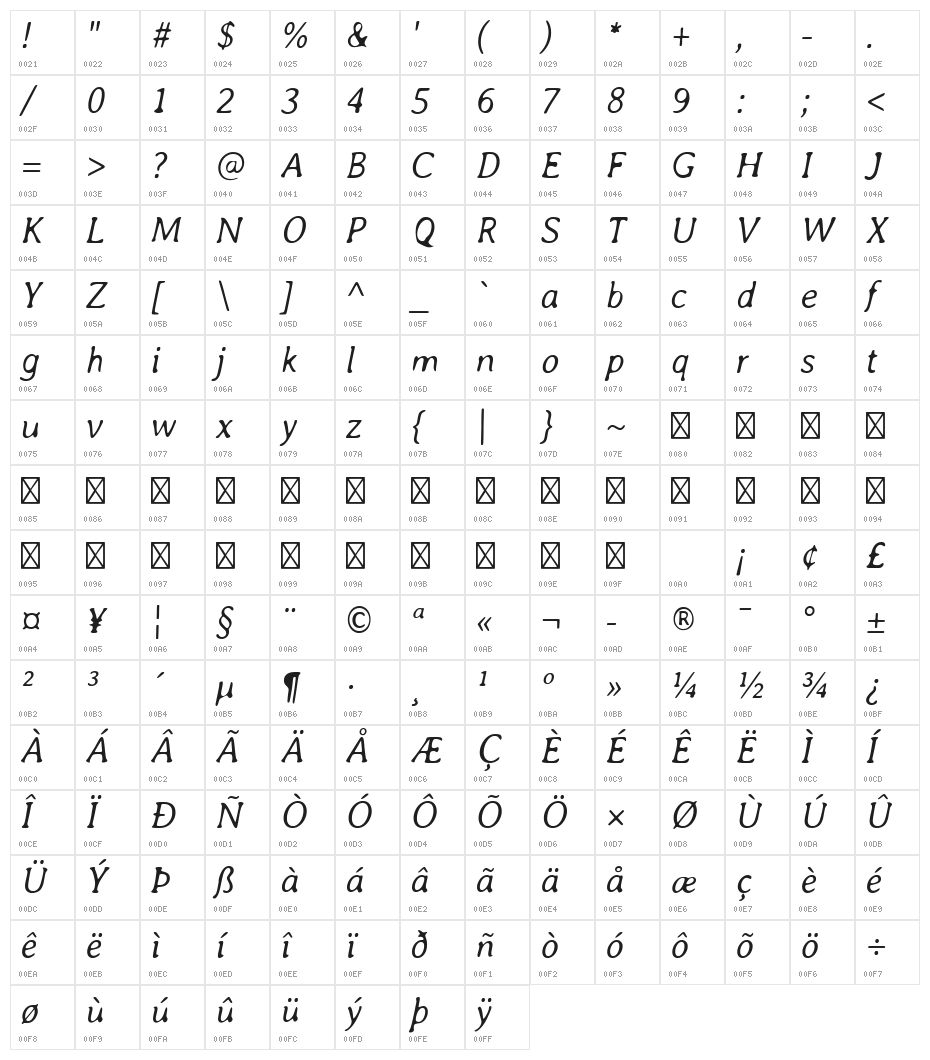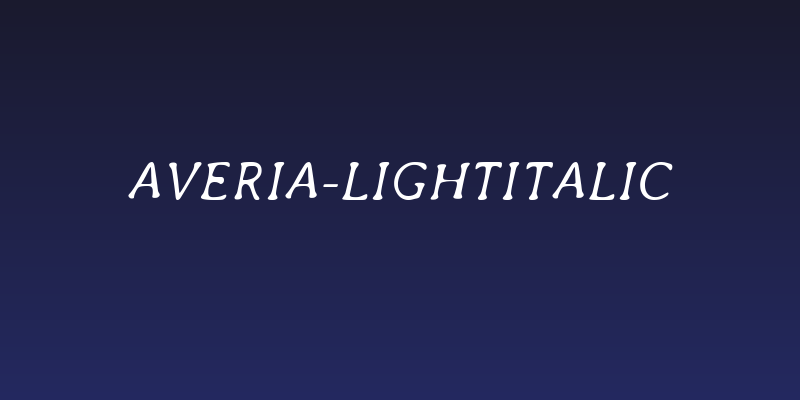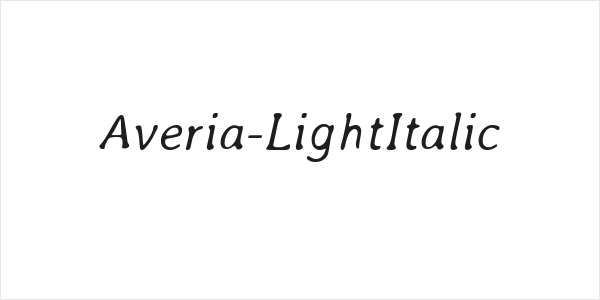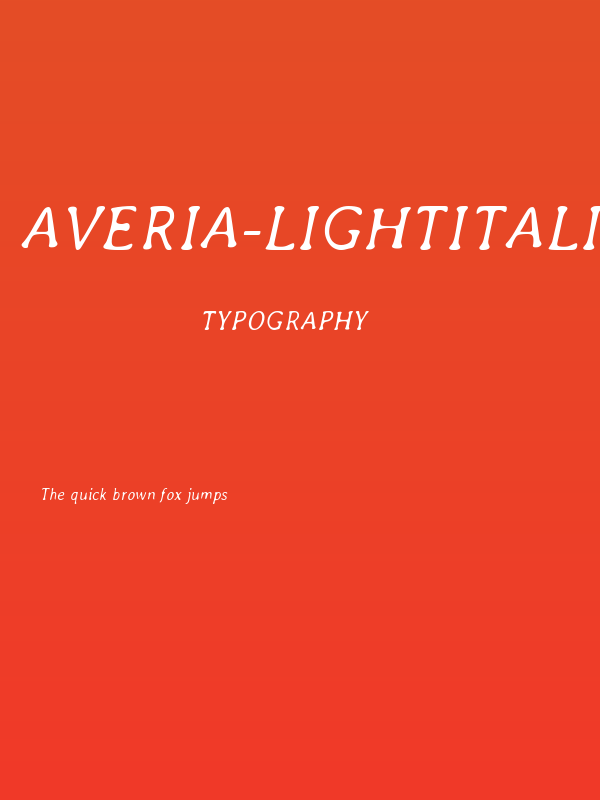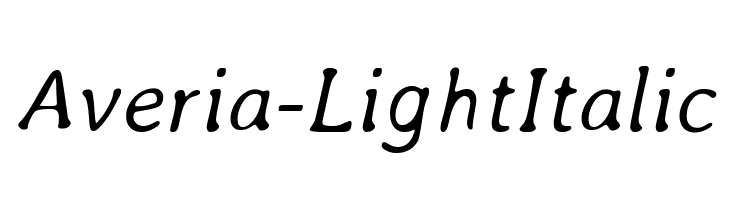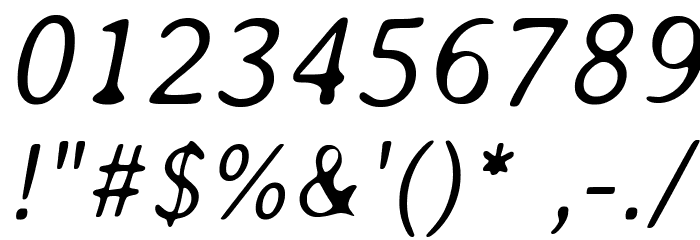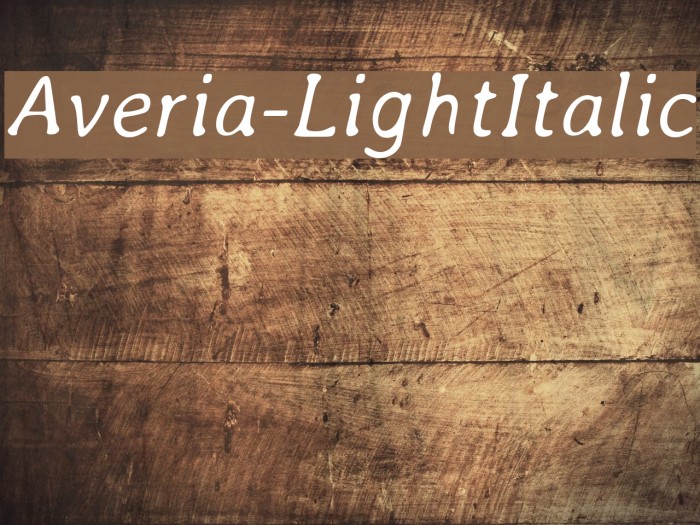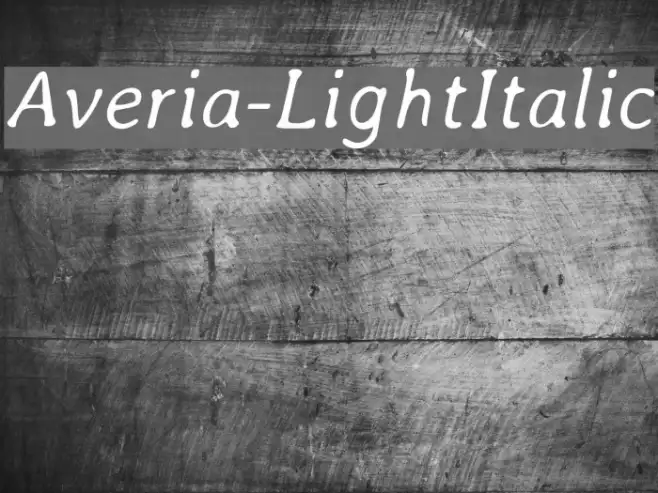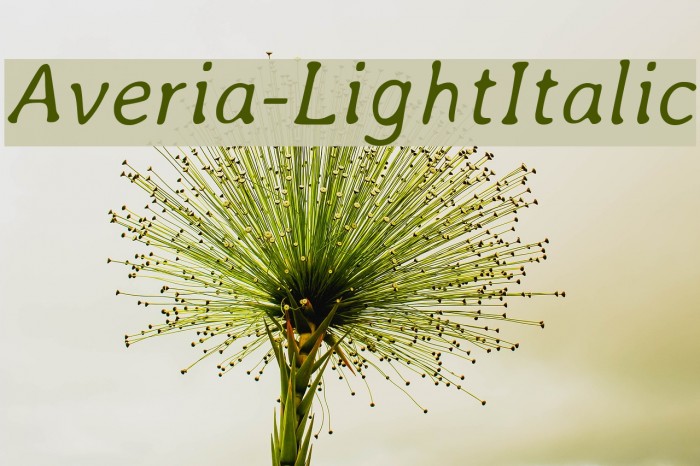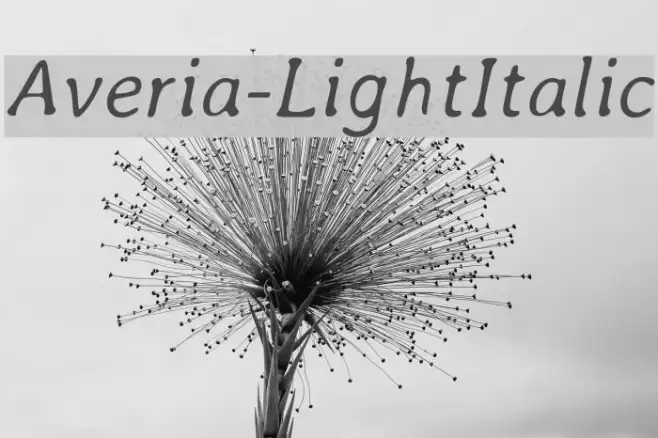
Averia-LightItalic Font
Averia-LightItalic Description
This font features a smooth, flowing style with a gentle italic slant, giving it an elegant and approachable appearance. The characters are well-proportioned, with a slight curvature that adds a touch of sophistication without compromising readability. The uppercase letters maintain a consistent height, while the lowercase letters exhibit a harmonious balance between ascenders and descenders. The numerals are clear and distinct, ensuring easy legibility. Special characters are thoughtfully designed to complement the overall aesthetic, making this font versatile for various applications.
| Overall Style | Elegant |
| Use Case | Headlines, Invitations, Branding |
| Proposed Projects | Ideal for wedding invitations, greeting cards, elegant branding, and editorial design. |